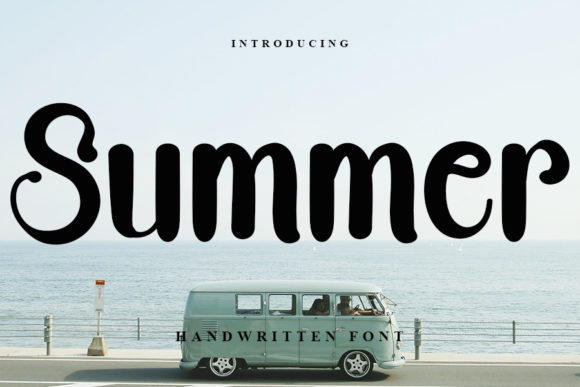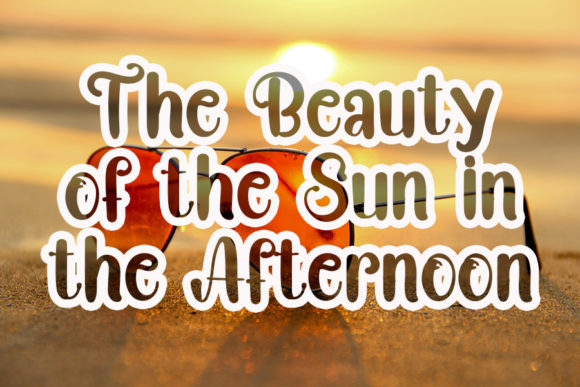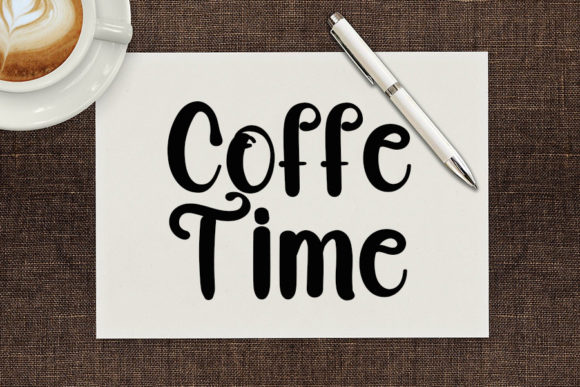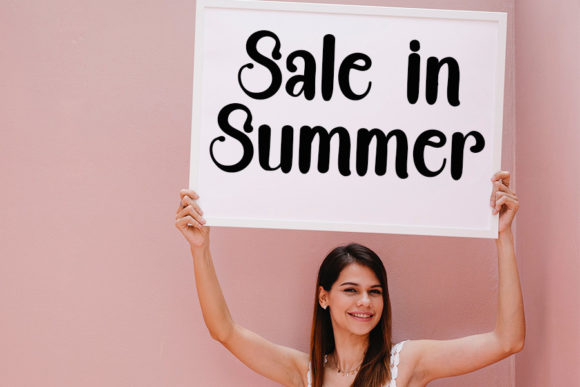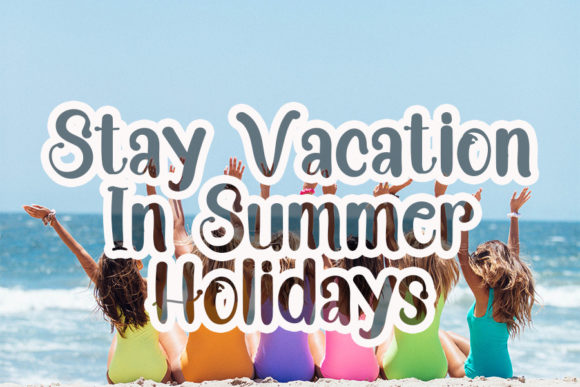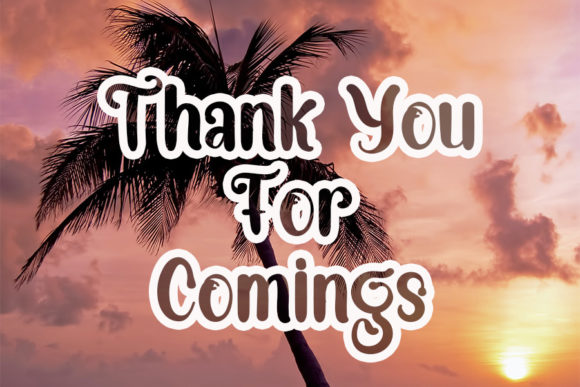
Summer Font
About Summer Font
“Summer” is a trendy handwritten font designed to infuse a contemporary atmosphere and impeccable form into your design projects. Drawing inspiration from timeless classic calligraphy, this font strikes a balance between elegance and modernity, bringing a touch of sophistication and class to your creative endeavors.
The versatility of “Summer” makes it suitable for a wide range of design applications. Whether you’re working on branding, logos, invitations, or various other projects, this font has the adaptability to enhance the visual appeal of your designs. The handwritten style adds a personal and authentic touch, making it a versatile choice for projects that require both elegance and a modern aesthetic.
“Summer” can be employed across various products, adapting seamlessly to the specific requirements of each design need. Whether used on packaging, labels, social media graphics, or any other design element, this font brings a trendy and refined quality to your creative work.
In summary, “Summer” is more than just a font; it’s a design asset crafted to add a contemporary and elegant flair inspired by classic calligraphy. Its impeccable form and modern atmosphere make it an excellent choice for designers seeking a versatile and stylish font to elevate the aesthetics of their projects, capturing the essence of the season it’s named after.